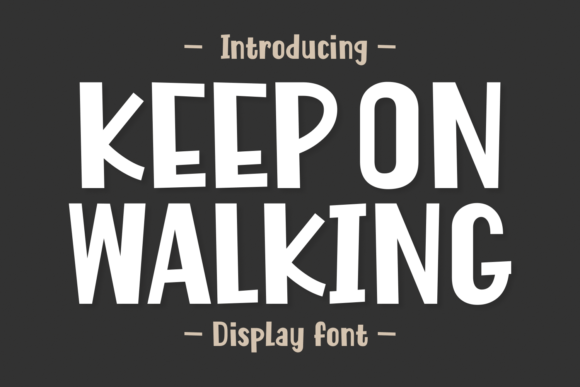
Introducing Keep on Walking font, the ultimate choice for your next science poster. Created by Refy (7NTypes), this playful display font is a perfect combination of uniqueness and versatility that will elevate your projects to the next level.
With its exceptional readability, Keep on Walking font is designed to capture the attention of your audience while delivering your message with clarity. Whether you want to create greeting cards, headlines, or any other design project, this font has got you covered.
The Keep on Walking font family is more than just a font; it's a reflection of your creativity and innovation. It's a font that allows you to unleash your imagination and bring your designs to life. With its captivating design and smooth curves, it will leave a lasting impression on anyone who views it.
Moreover, this font is not only visually appealing, but it's also user-friendly. You won't need to spend hours adjusting the kerning or spacing; everything is perfectly balanced, making it easier for you to work on your projects efficiently.
In conclusion, Keep on Walking font is the best font for your science poster, and it's also an excellent addition to any design project. Add it to your collection today, and watch your designs come to life!